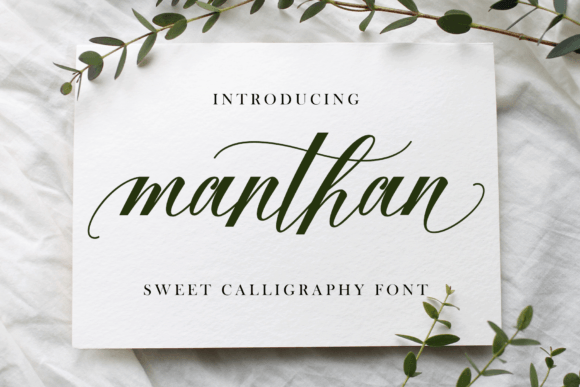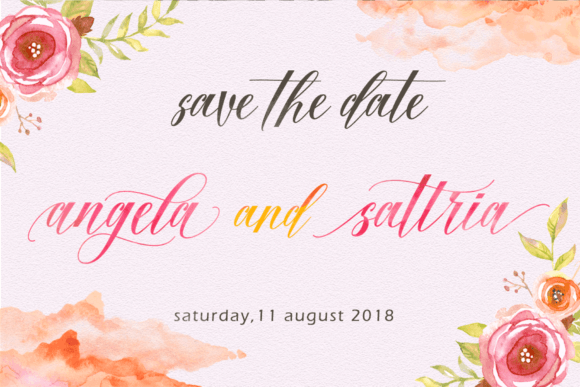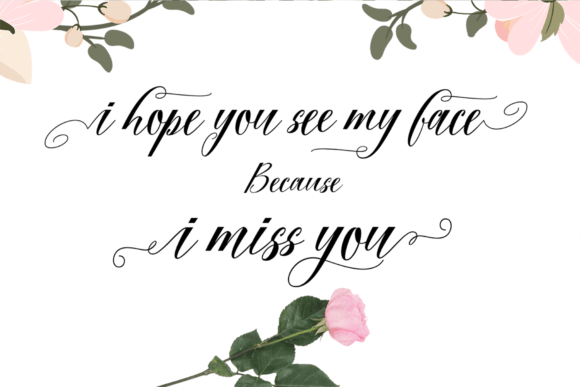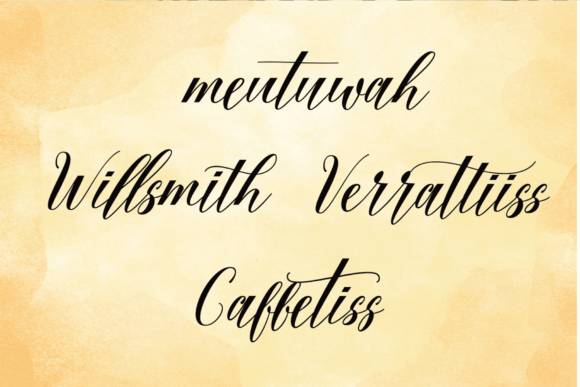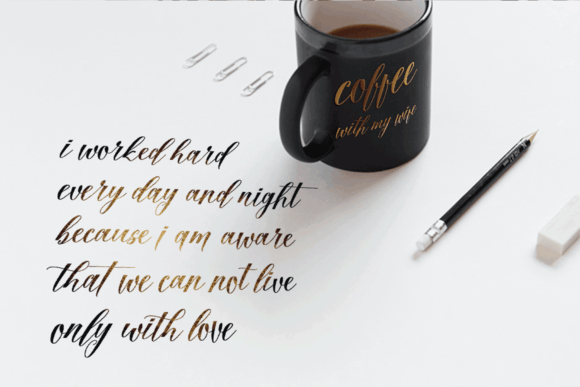
Manthan Font
About Manthan Font
Manthan is a captivating handwritten script font that plays a significant role in design. These fonts infuse elegance and timelessness into various projects. Manthan, in particular, stands out for its unique and flowing script, making it popular among designers seeking visually captivating designs.
Personalization and Individuality
Handwritten script fonts are valued for their capacity to convey personalization and individuality. Unlike standard fonts, each character in a handwritten script is crafted with care, often bearing subtle variations that mimic human handwriting. This quality adds a human touch to design work, helping establish a deeper connection with the audience.
Invitations and Events
In invitations, Manthan and similar fonts are highly sought after. They bring sophistication and charm suitable for weddings, anniversaries, and formal gatherings. When used in wedding invitations, for instance, Manthan evokes romance and elegance that sets the tone for the event.
Versatility Across Projects
Script fonts like Manthan are versatile. They apply to posters, flyers, branding materials, and website headers. Their adaptability ensures they create cohesive brand identities. In branding, such fonts become recognizable elements, helping consumers associate a style with a product or company.
Timeless Appeal
The timeless appeal of handwritten script fonts is another key aspect. While trends may change, elegant scripts endure. Manthan’s distinct style isn’t bound by time constraints, allowing it to remain relevant in various contexts. This longevity makes it valuable for designers wanting their work to last.
In conclusion, handwritten script fonts like Manthan are cherished for adding elegance and personalization to projects. Whether used in invitations or digital media, Manthan’s flowing script captivates audiences and leaves lasting impressions.
This font also suits other applications like event invitations or personal stationery with its elegant touch. Additionally, it works well in digital media like websites or apps where a personal feel is desired. Its adaptability ensures that no matter the project, Manthan will add flair that captivates viewers.